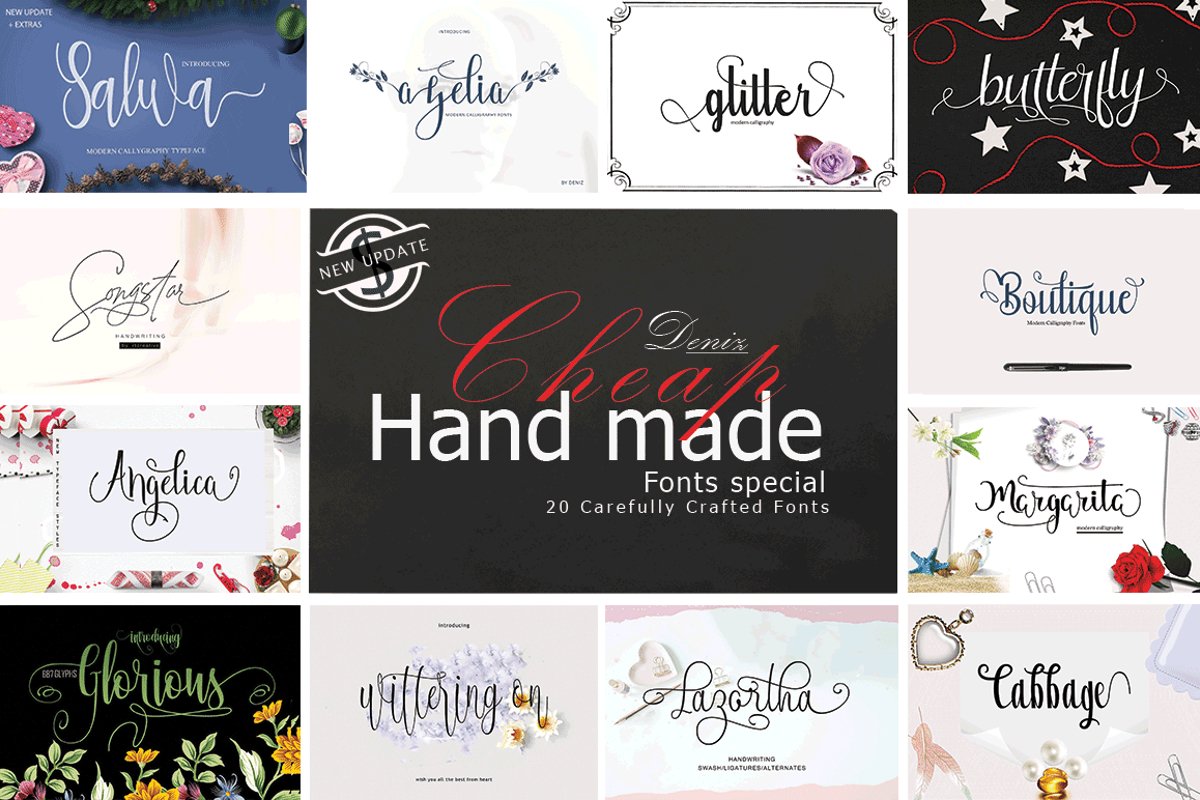
20 Incredible Handwritten Fonts
20 Incredible Handwritten Fonts.
Recently, this style of font has become popular in both digital and print formats. Using your design skills you can pull off emotions like dancy, tragic, exciting, and dangerous with these offerings. And put that final touch on your project with these 20 insanely good handwritten fonts.
Main Features:
Titling Alternate
Stylistic Alternate
Contextual Alternate
Ligatures
Discretionary ligature
Contextual ligature
Swash Variant
Initial Form
Medial Form
Terminal Form
From sleek to futuristic, these handwritten fonts are everything you could ever hope for. This bundle includes a magnificent medley of goodies in every style so you can craft tantalizing designs for whatever project comes your way.